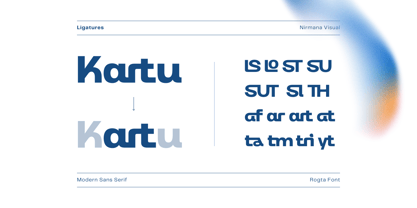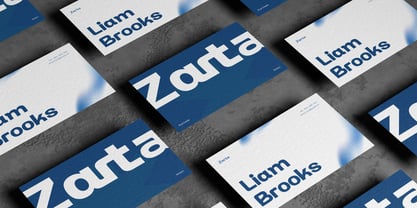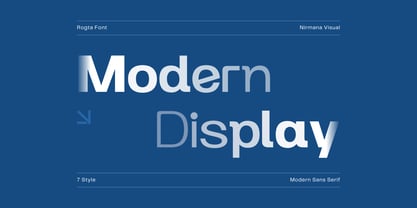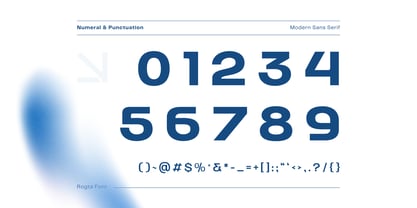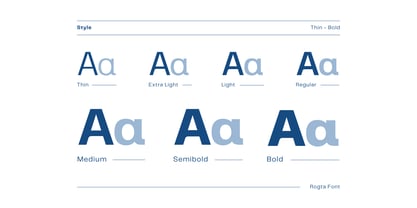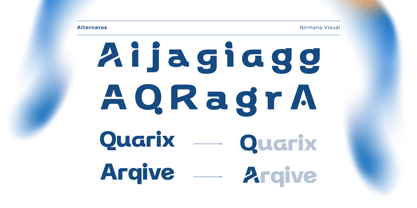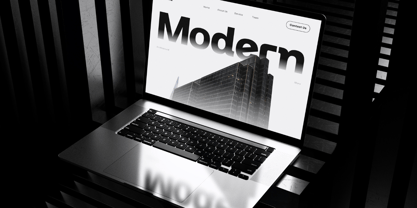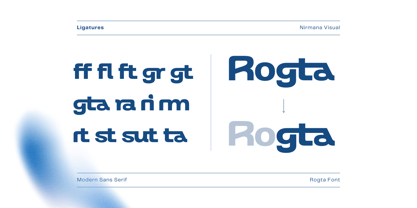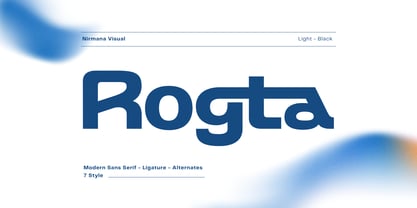
Rogta Modern
Die Schriftfamilie Rogta Modern wurde von Sigit Dwipa entworfen und von Nirmana Visual veröffentlicht. Rogta Modern enthält 7 Stile und Familienpaketoptionen. Mehr über diese Familie
Rogta is a modern sans serif font family crafted for versatility and clarity. Featuring seven styles from Thin to Bold, Rogta offers a full range of weights to suit any design need—from elegant minimalism to strong, impactful headlines. Clean lines and balanced proportions make it perfect for branding, UI design, and editorial use. With its modern aesthetic and functional style, Rogta brings a fresh, professional look to any project.